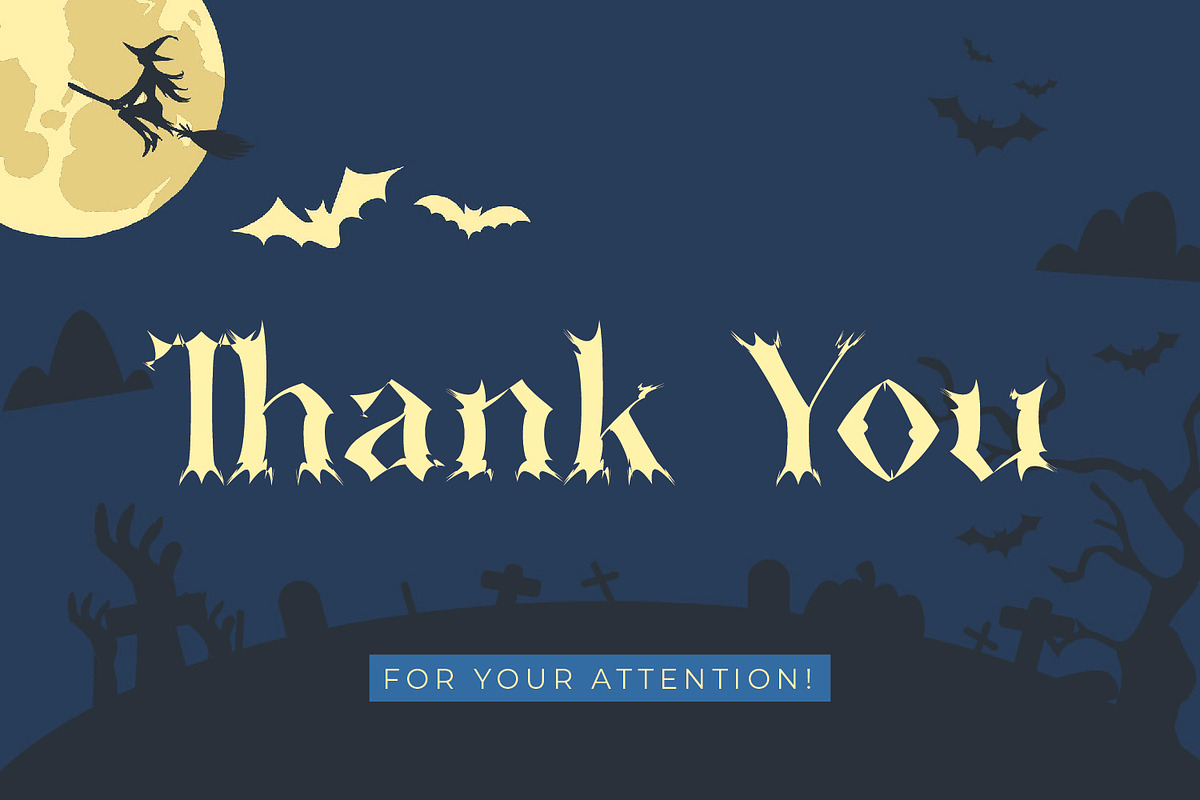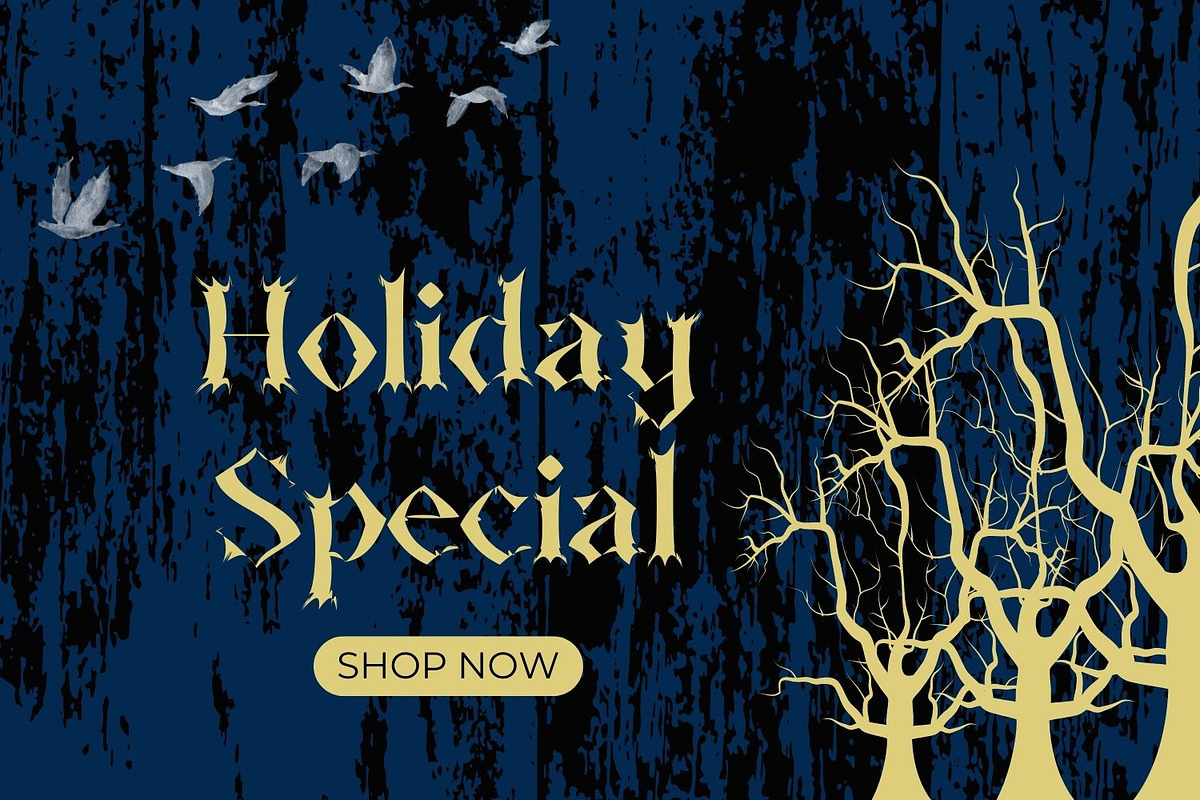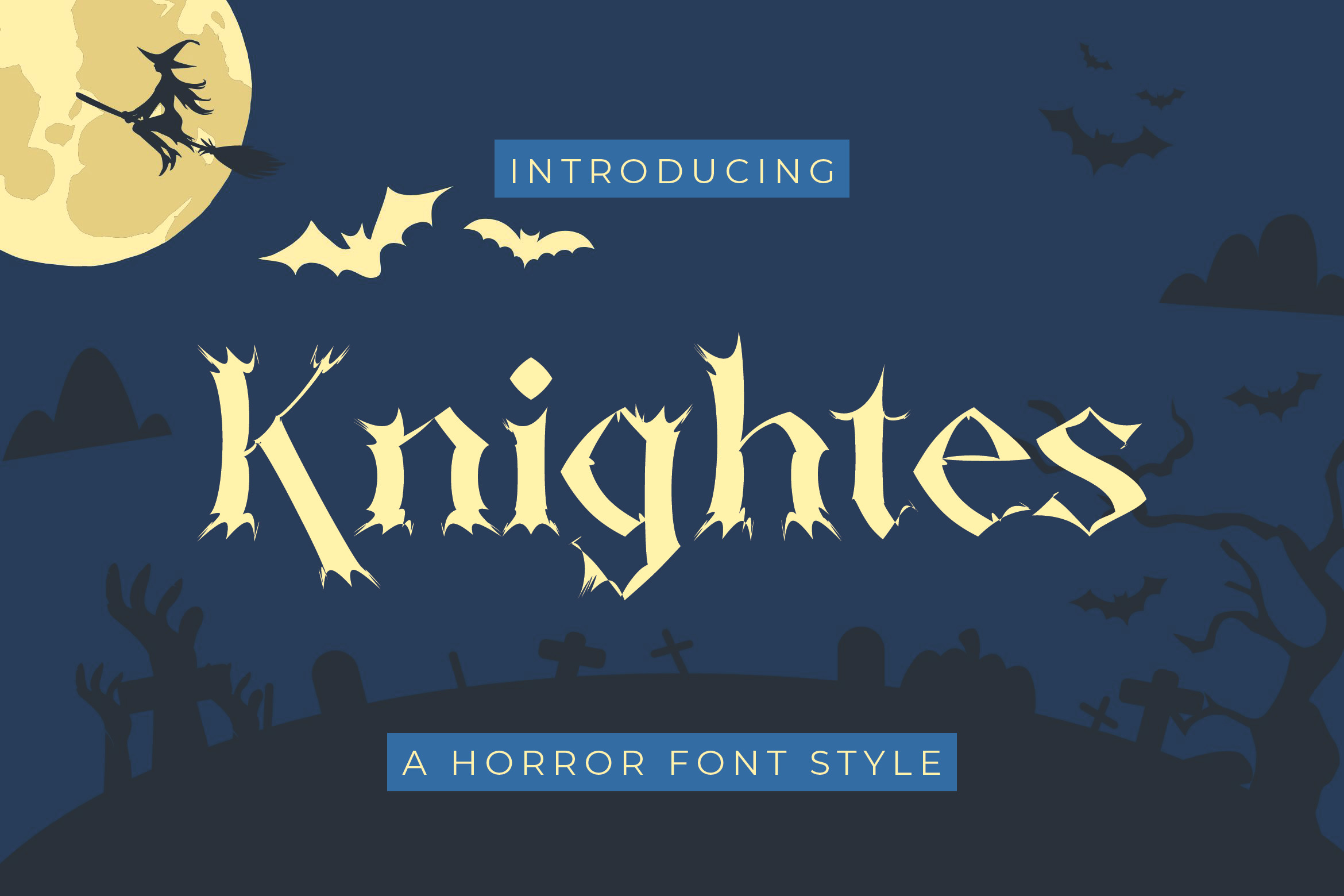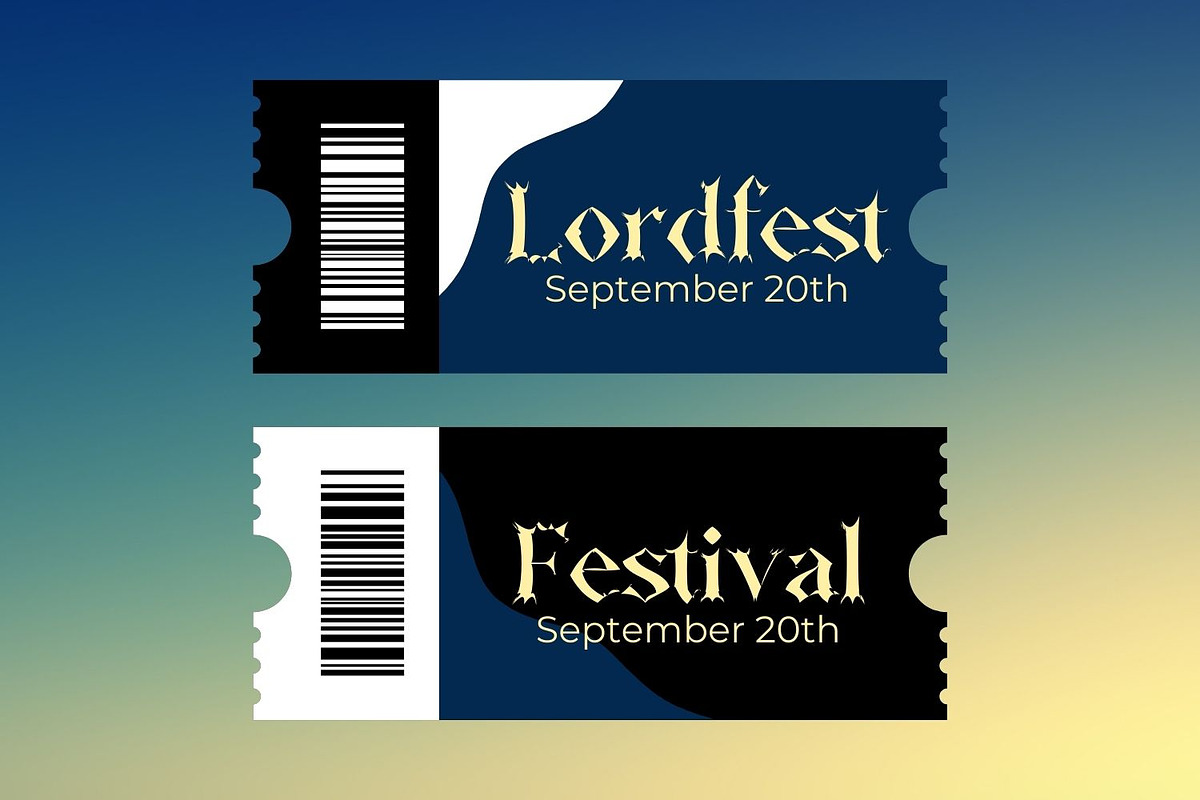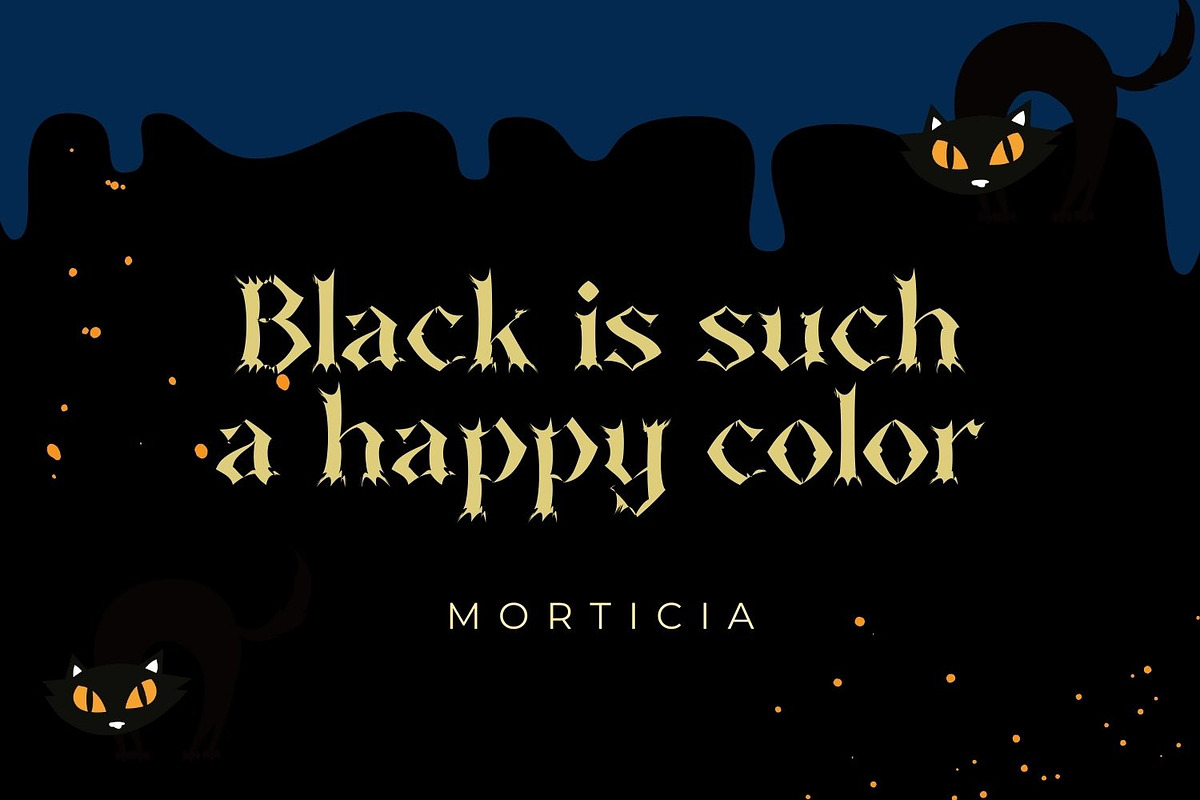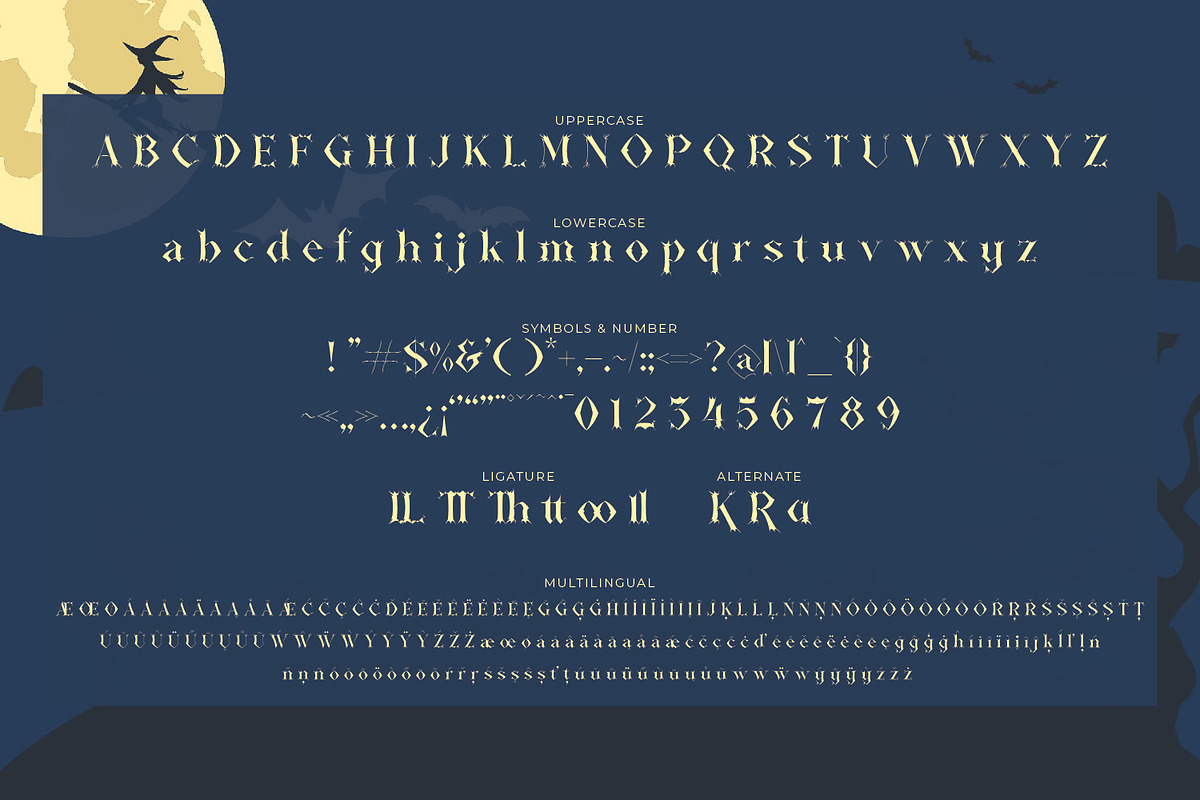
Knightes Horror Font
Knightes - Horror Font is a horror typeface especially created by experts, resulting in this amazing font. This font is impressive making it a perfect fit for your large projects. It is perfect to use in all your design projects, be it logos, signatures, labels, packaging designs, quotes, heading titles, movie titles and much more. No matter the setting, Knightes will make your text stand out!
- Tons of glyphs
- Alternates and Ligatures
- Punctional
- Fonts include Multilingual Support